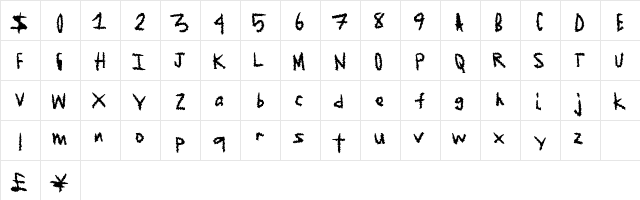
JagedEdge Regular
| Foundry | Xerographer Fonts |
| Designer | Xerographer Fonts Max Infeld |
JagedEdge is a composed and adaptable typeface that performs quietly and consistently across a wide range of design contexts.